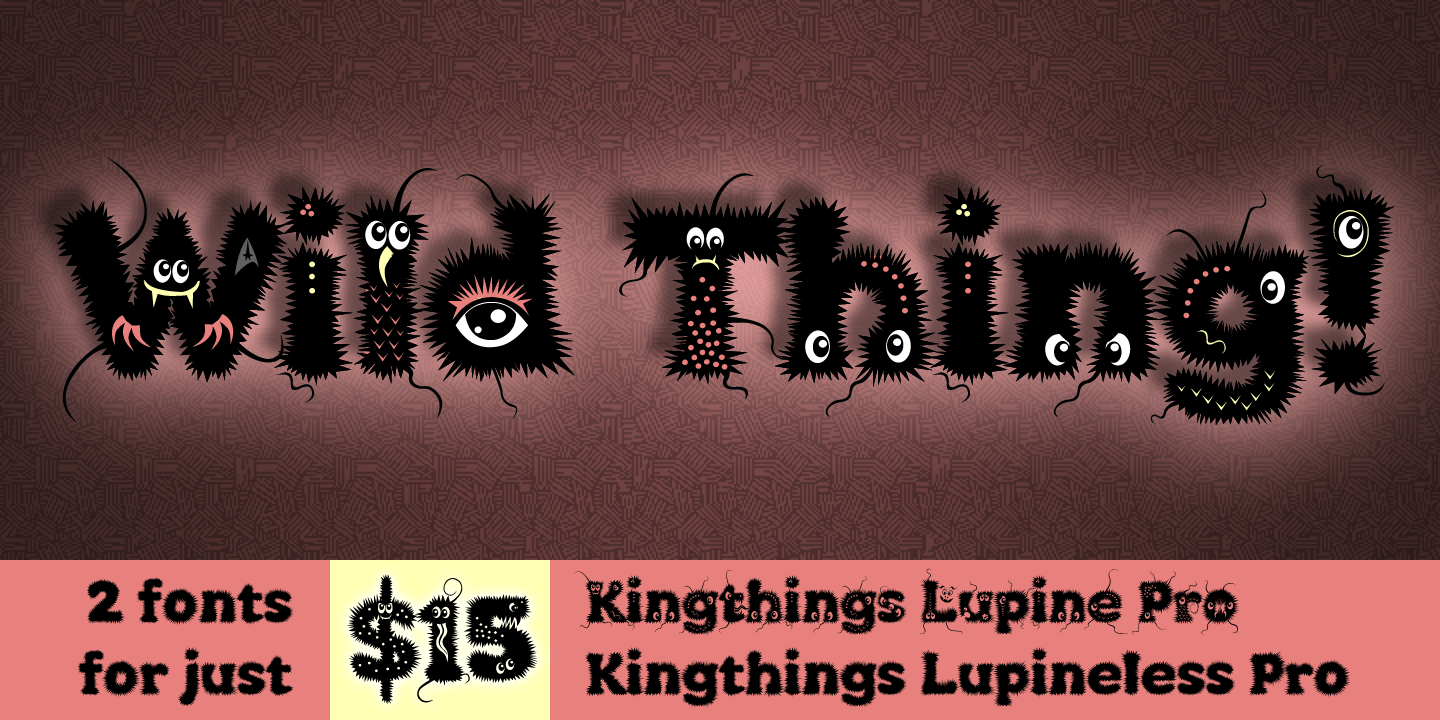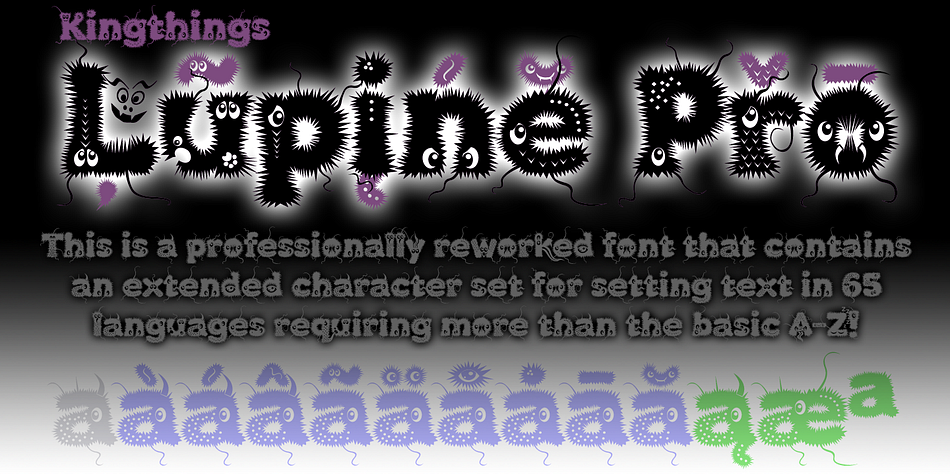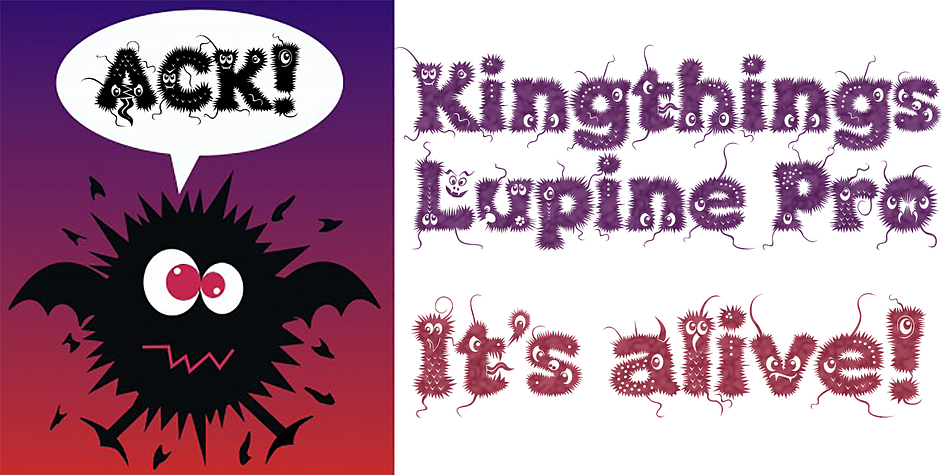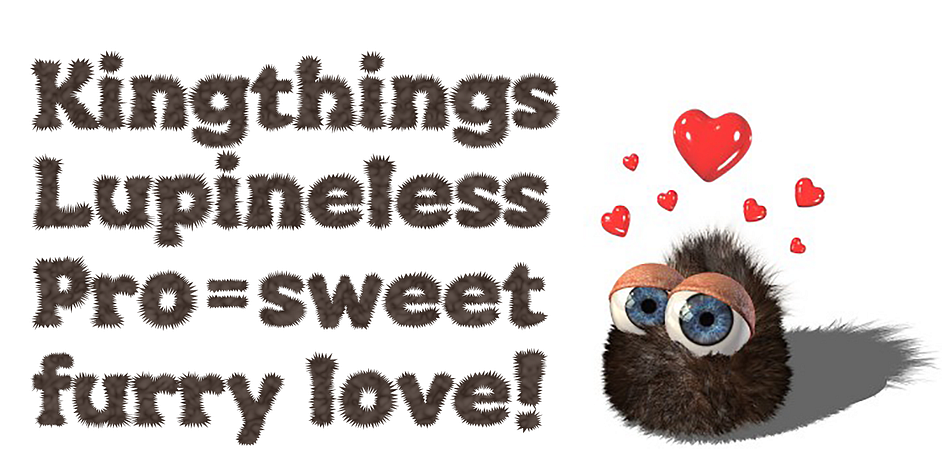
Kingthings Lupine Pro is a novelty font family. This typeface has two styles and was published by CheapProFonts.
I loved this monster font the second I saw it - it reminded me of Franquins Idées Noires… Reworking it and adding the missing glyphs and diacritics was quite time-consuming - but a lot of fun! Lots of details.
The Lupineless variant is Lupine with eyes, decorations and stray hairs removed - which leaves just a very usable fuzzy font for your monster-related headline.
Kevin King says: “I love fantasy writing and my favorite author is Terry Pratchett. In Reaper man, my favorite book, there is a werewolf character called Lupine, I wanted to make a font for him and for Ludmilla… It’s a long story, it’s a hairy font.”